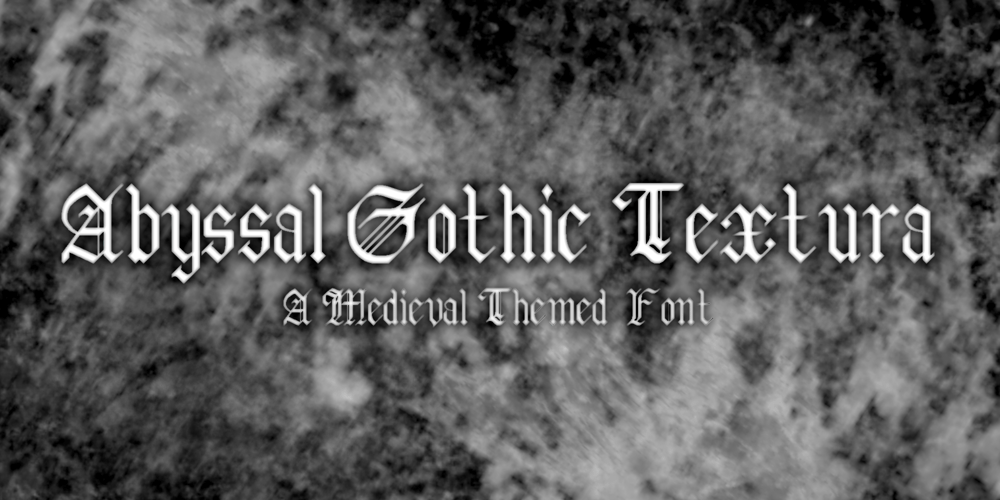
Abyssal Gothic
Abyssal Gothic font
Abyssal Gothic Font Family was designed by Arthur Covanov and published by Abyssal Graphics. Abyssal Gothic contains 1 styles and family package options. Introducing “Abyssal Gothic Textura,” a hauntingly elegant blackletter font that reimagines medieval dark-fantasy with a modern twist. This font captures the allure of ancient calligraphy while preserving its historical aura. Meticulously crafted, each character exudes gothic grandeur, appealing to both traditionalists and forward-thinking designers. Ideal for sophisticated projects, it lends enigmatic allure to book covers, posters, and invitations. With support for multiple languages and stylistic alternates, “Abyssal Gothic Textura” empowers creativity in diverse designs. Let it guide you into the dark-fantasy realm, where it unveils hidden depths, bridging ancient charm and contemporary allure. Embrace the enigma of history with this captivating typographic gem.